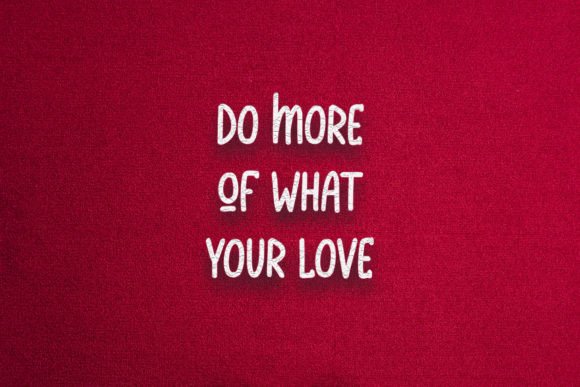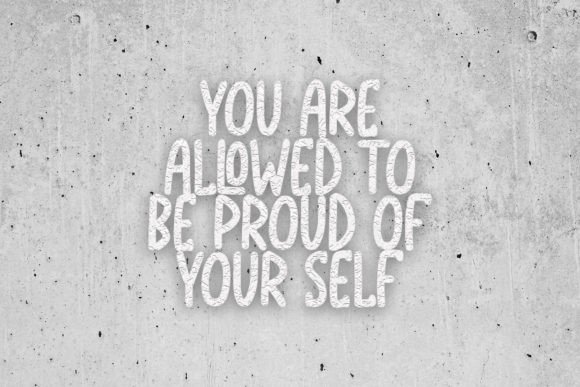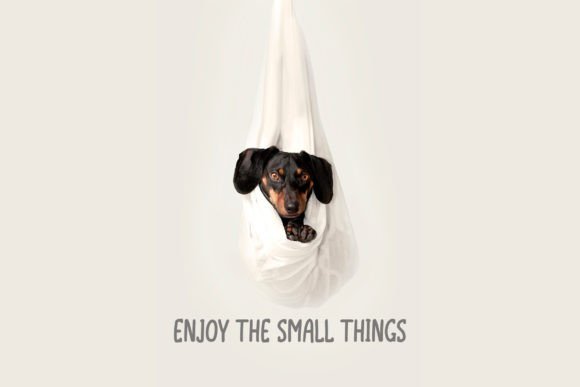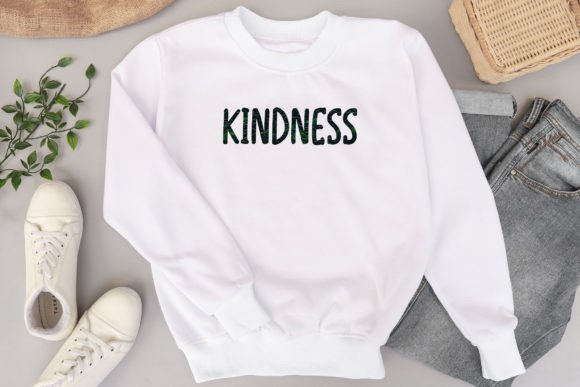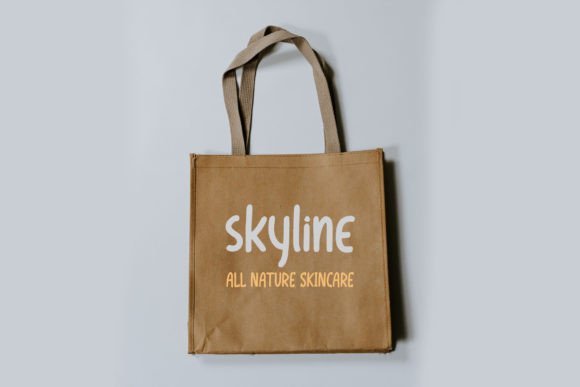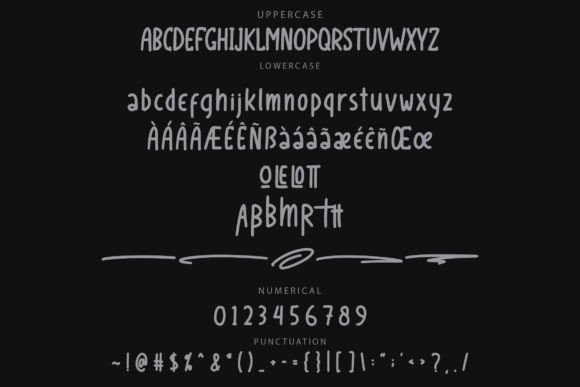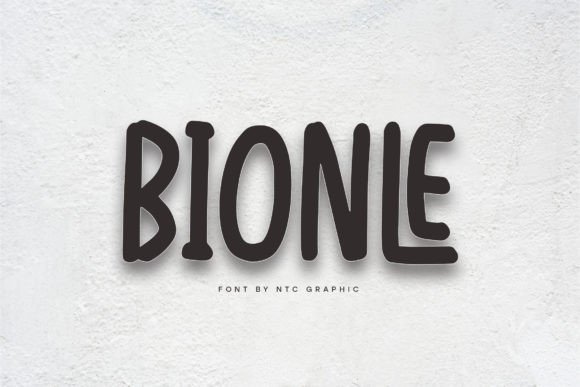
I still remember the frustration of working on a project, hours spent crafting the perfect design, only to be held back by one crucial element: the font. My client wanted something modern, elegant, and unique – but not too quirky. I scoured the internet, tried countless fonts, but nothing seemed to fit. That was until I stumbled upon Bionle.
Introducing Bionle: The Epitome of Streamlined Sophistication
Bionle is a handwriting-inspired font that embodies the beauty of simplicity. With its minimalist approach, every letter is rendered through distinctive shapes, breathing unadulterated originality into your creative projects. Whether you’re looking to breathe life into product graphics or add a touch of charm to your next design masterpiece, Bionle excels in enhancing visual charm manifold.
An Honest Review: The Good and the Quirky
What I Love About Bionle ✨
- ✅ Unique and distinctive letterforms that set it apart from more traditional fonts
- ✅ Versatile and can be used for a wide range of design projects, from branding to packaging
- ✅ Easy to pair with other fonts, thanks to its clean and minimalist aesthetic
- ⚠️ Limited availability of extended language support
- ⚠️ Some users may find the font too minimalist or lacking in personality
The Story Behind Bionle: Designer Inspiration
Bionle was designed with the goal of creating a font that embodies the beauty of simplicity. The designer, inspired by the clean lines and minimalist aesthetic of modern design, sought to create a font that would be both elegant and highly legible. Through a process of experimentation and refinement, Bionle was born – a font that is at once unique, versatile, and sophisticated.
Q: What is Bionle’s personality?
A: Bionle’s personality is modern, elegant, and sophisticated, with a clean and minimalist aesthetic.
Q: Is Bionle suitable for body text?
A: Yes, Bionle is highly legible and can be used for body text, especially in digital interfaces and print design.
Q: Does Bionle support extended language characters?
A: Bionle’s language support is limited, so it’s best to check the font’s specifications before using it for projects that require extended language characters.